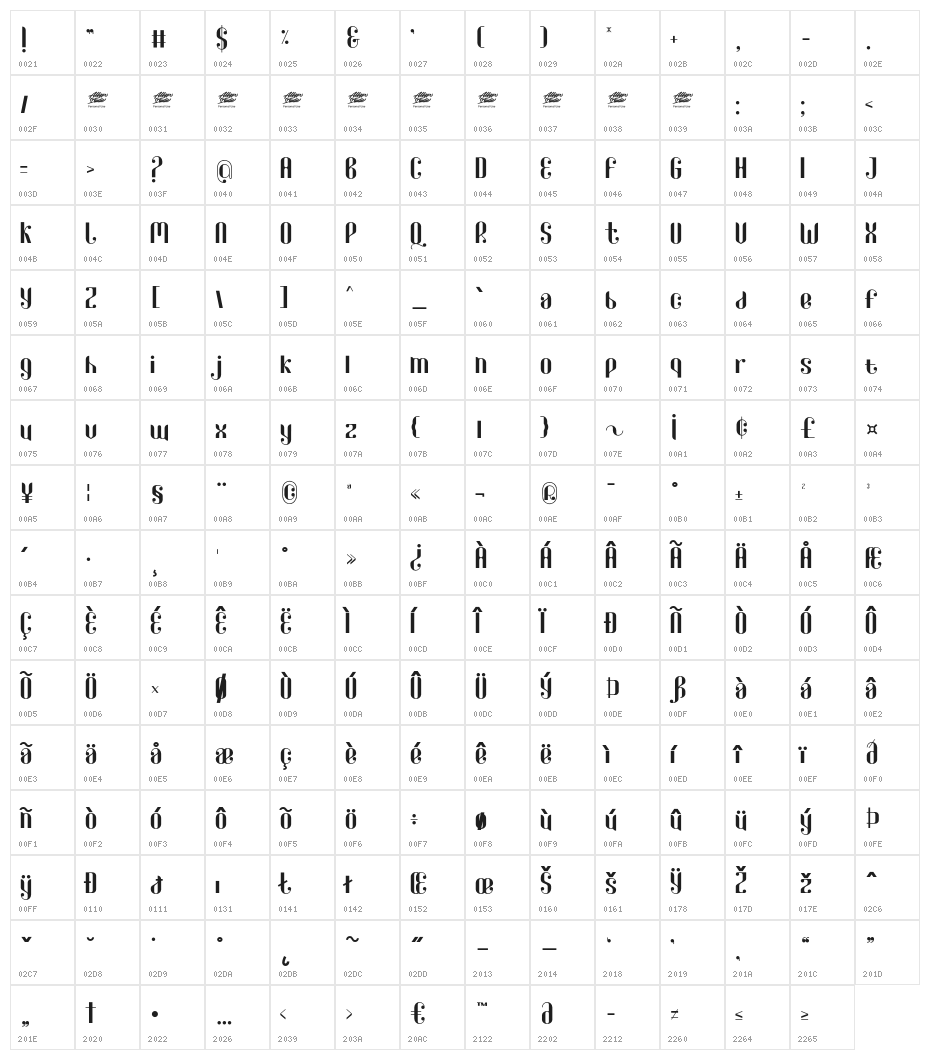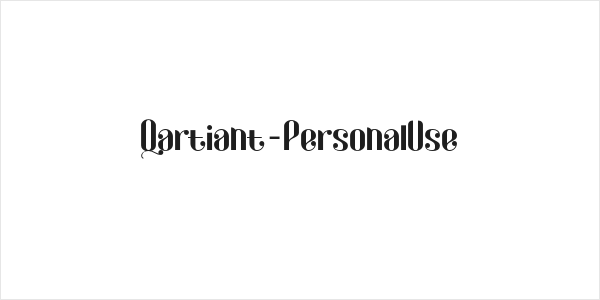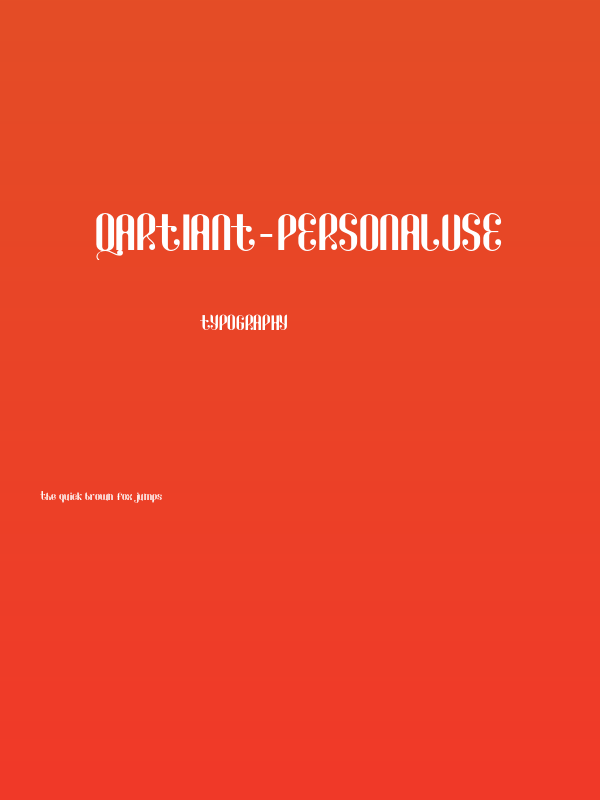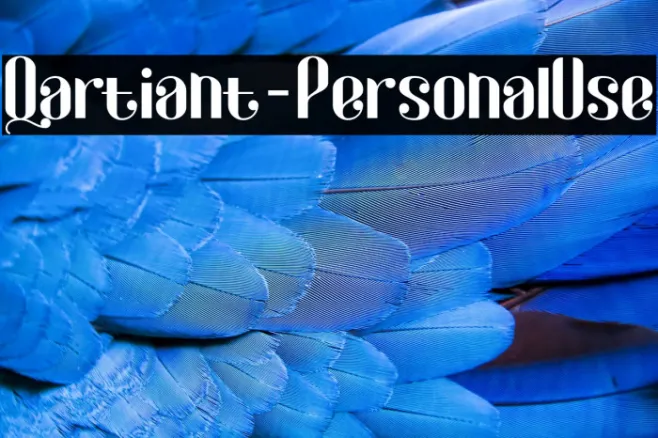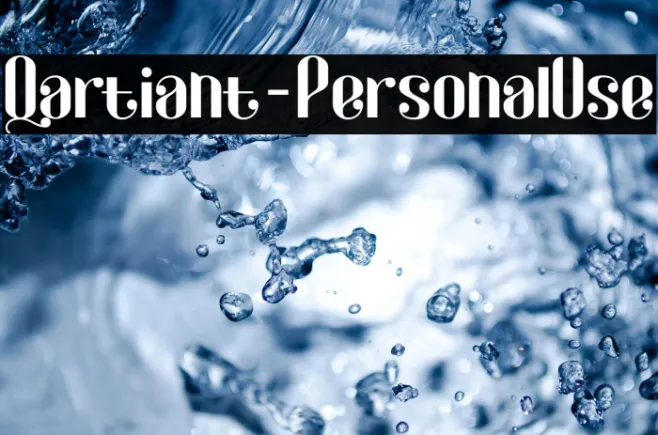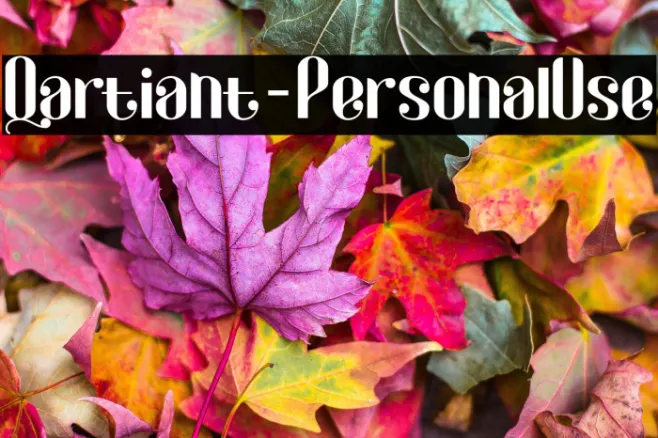
Qartiant-PersonalUse Font
Qartiant-PersonalUse Description
This font features a unique blend of bold, decorative elements with a modern twist. The uppercase letters are characterized by their thick, vertical strokes and rounded edges, giving them a strong yet approachable appearance. The lowercase letters maintain a similar style, with some incorporating elegant swashes and curls that add a touch of sophistication. The numerals and special characters are designed to match the overall aesthetic, ensuring consistency throughout. This font is perfect for projects that require a distinctive and eye-catching typeface.